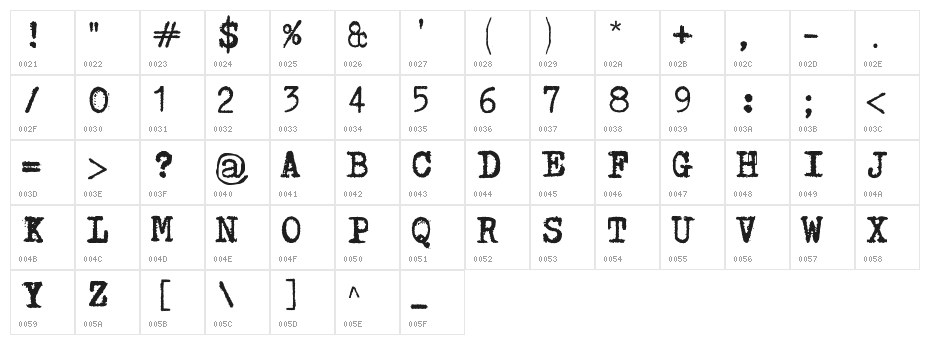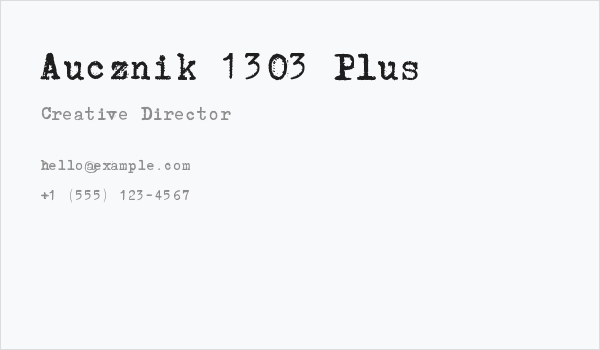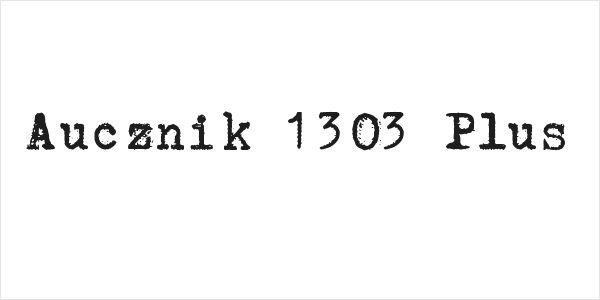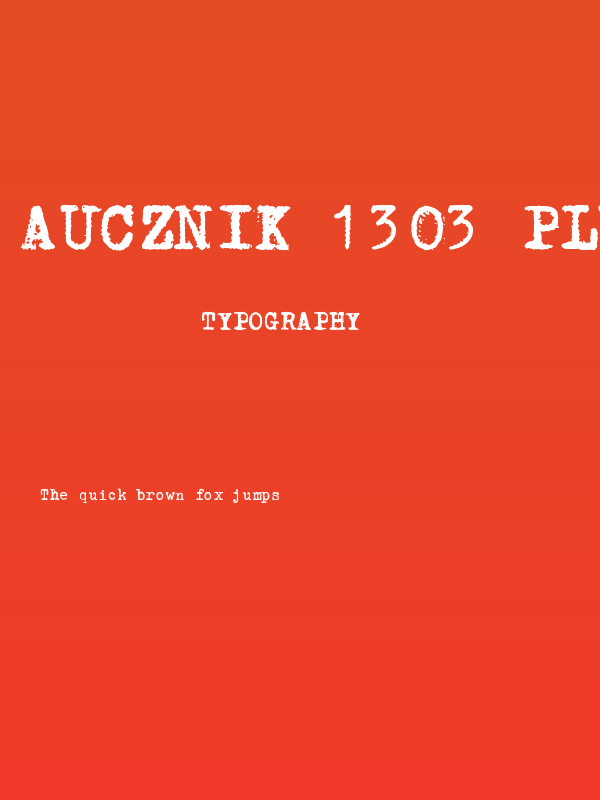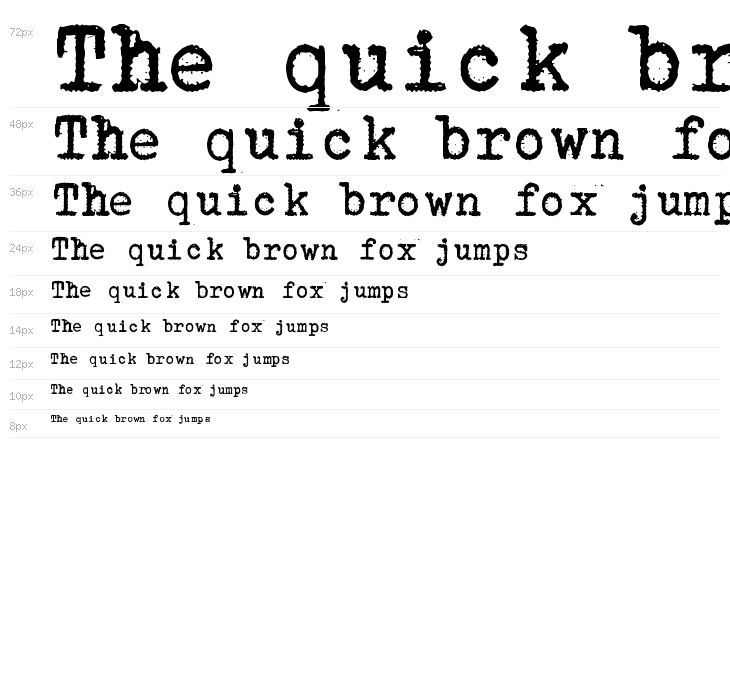
Aucznik 1303 Plus Font
Aucznik 1303 Plus Description
This font features a distressed, vintage typewriter style with a rough, textured appearance. The characters are bold and have a slightly irregular outline, giving them a worn, aged look. The uppercase and lowercase letters maintain a consistent style, with rounded edges and a monospaced design, reminiscent of old typewriter fonts. The numbers and special characters follow the same aesthetic, providing a cohesive and nostalgic feel. This font is ideal for projects that require a retro or industrial touch, adding character and authenticity to any design.
| Proposed Projects | Ideal for vintage-themed designs, posters, retro branding, and creative projects that require a nostalgic touch. |